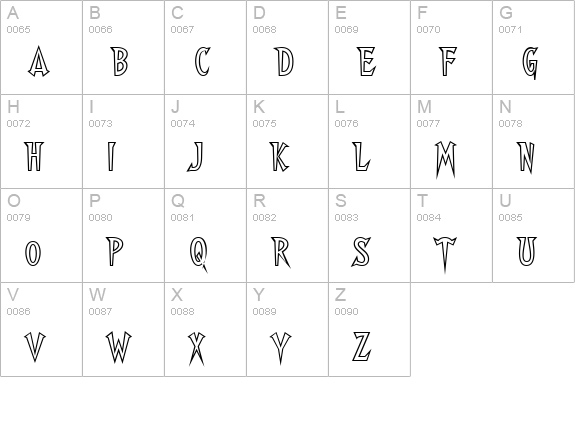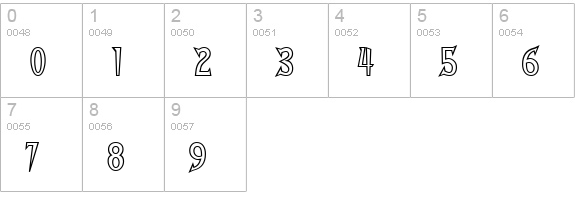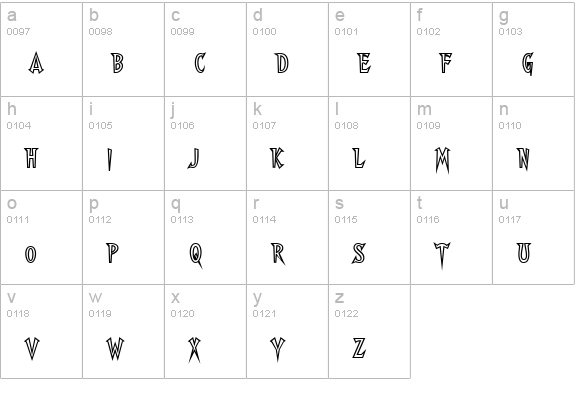
Walshes Outline Font Details
Walshes Outline font is a stunning display typeface that is sure to catch the eye with its unique and intricate design. This font is perfect for adding a touch of elegance and sophistication to any project. The delicate lines and smooth curves of Walshes Outline give it a distinct and timeless appeal. What makes Walshes Outline even more remarkable is that it is completely free to download at FontsMarket.com. This means that designers, creatives, and typophiles alike can enjoy the beauty of this font without any cost. Whether you are working on a personal project or a professional design, Walshes Outline is a fantastic choice. With its wide range of characters and glyphs, Walshes Outline offers versatility and flexibility. It can be used for titles, headings, logos, posters, invitations, and much more. The clean and crisp outlines of this font make it easy to read, even at smaller sizes, ensuring that your message is conveyed with clarity and style. Downloading Walshes Outline from FontsMarket.com is a breeze. Simply visit the website, search for the font, and click on the download button. In just a few seconds, you will have this incredible font at your fingertips, ready to enhance your designs and bring them to life. So why wait? Take advantage of this amazing opportunity to download Walshes Outline for free at FontsMarket.com. Whether you are a seasoned designer or just starting out, this font will elevate your work to new heights and leave a lasting impression on your audience. Don't miss out on this incredible font – get Walshes Outline today and let your creativity soar.